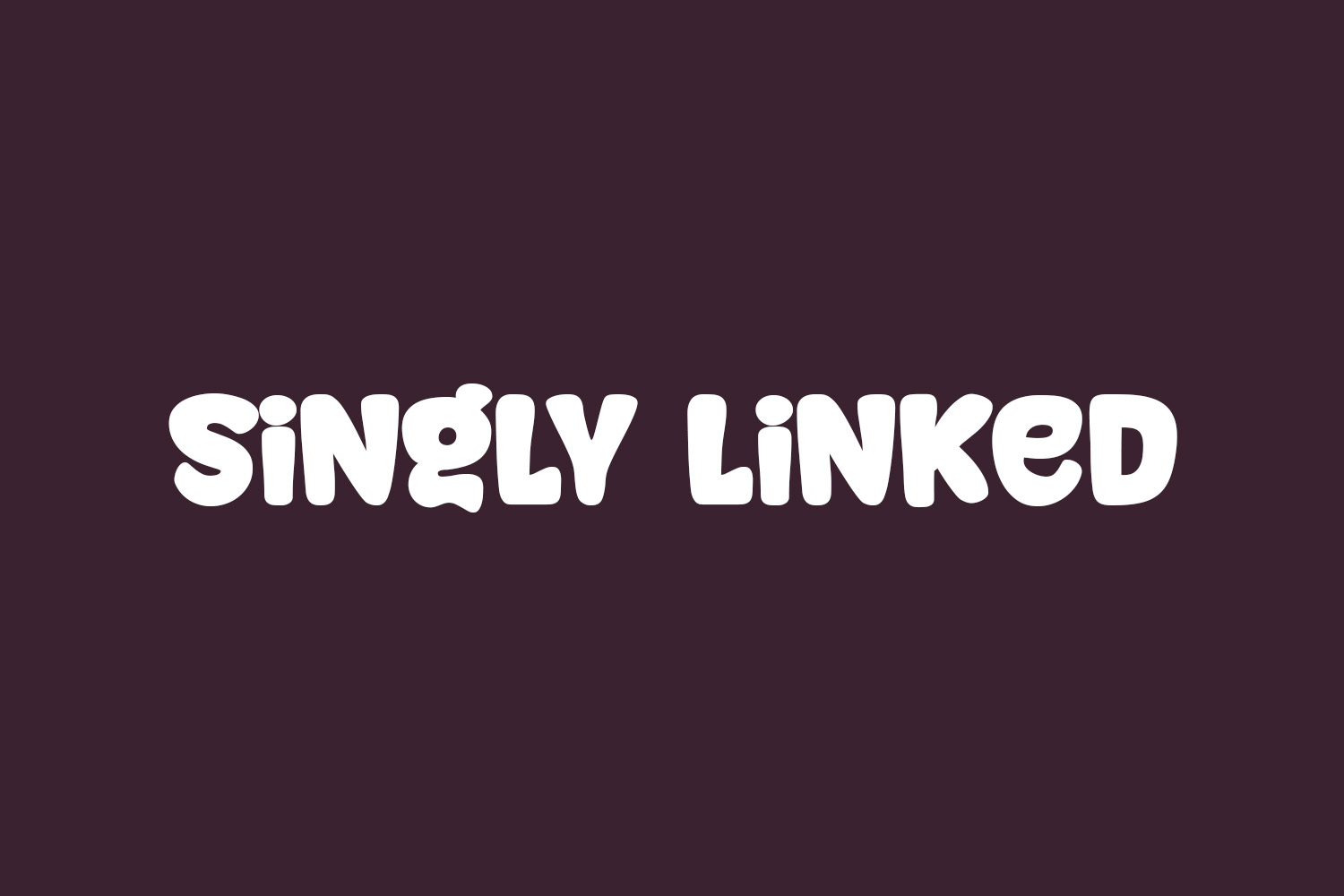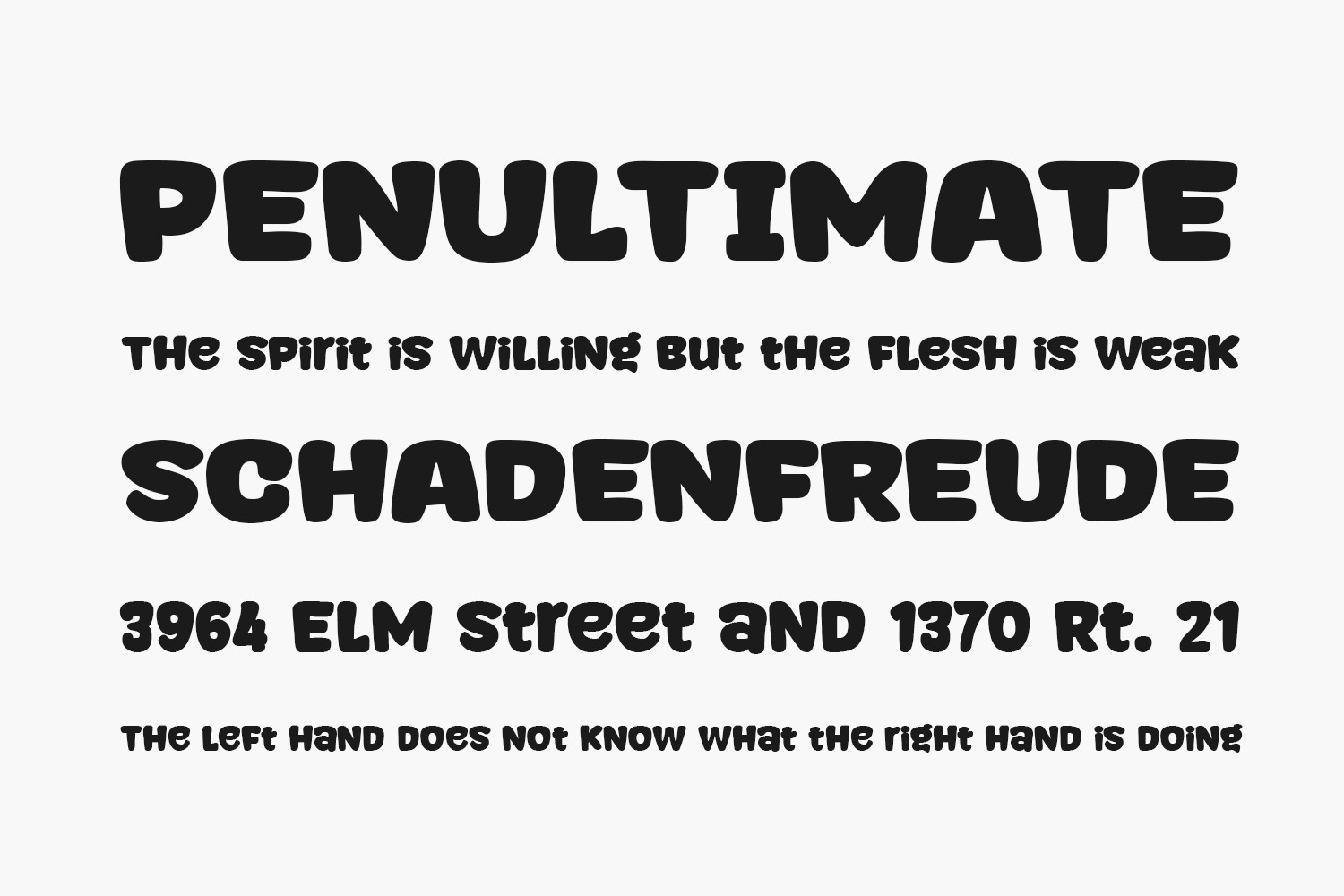
Introducing Singly Linked Free Font, a bold, comic-inspired display font that exudes a chunky and cartoonish charm. Infuse your projects with the neat and joyful personality of this font, elevating your creations to new heights of visual appeal. Free Font was designed by Niskala Huruf and is free for personal or commercial use.